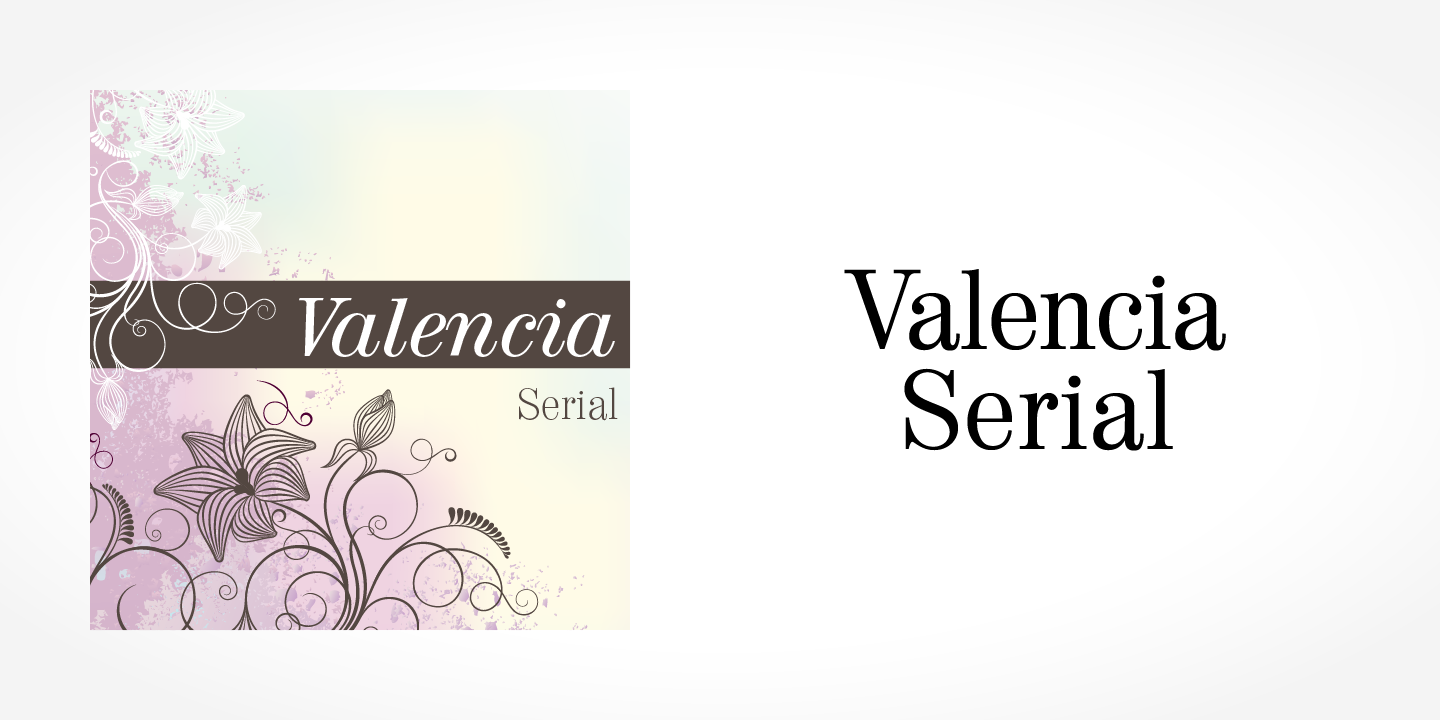
Valencia Serial Font is perfect for Mediterranean restaurant branding, Spanish cultural event posters, artisan food packaging, travel tourism promotions, flamenco dance studios, coastal resort signage, wine label designs, and romantic destination marketing.
Valencia Serial Font is exciting because it captures the passionate spirit and vibrant cultural heritage of Mediterranean life through its expressive character design that evokes the warmth of Spanish sunshine and the romantic charm of ancient European cities. Its distinctive styling and cultural authenticity make it the perfect choice for brands that want to communicate warmth, tradition, and the irresistible allure of Mediterranean lifestyle.
The Valencia Serial Font family includes multiple Mediterranean-inspired variations: Valencia Serial Regular, Valencia Serial Bold, Valencia Serial Light, Valencia Serial Condensed, Valencia Serial Script, and Valencia Serial Ornamental, along with decorative flourishes and cultural symbols, providing designers with comprehensive tools for creating authentic Spanish and Mediterranean-themed brand experiences.
When exploring Mediterranean typography solutions, Valencia Serial Font Free Download stands out as the premier choice for designers working on Spanish cultural and Mediterranean lifestyle projects. This captivating typeface embodies the essence of Iberian charm while offering the versatility needed for modern hospitality and tourism marketing. The font's warm character and cultural resonance create immediate connections with audiences who dream of Mediterranean adventures and authentic Spanish experiences.
Creative professionals consistently turn to Valencia Serial Font for projects requiring genuine Mediterranean authenticity and romantic appeal. Its carefully crafted letterforms feature cultural influences that work exceptionally well in both intimate restaurant menus and large-scale tourism advertising campaigns. The font's ability to convey passion and cultural pride while maintaining strong brand recognition makes it invaluable for comprehensive identity systems in the hospitality, tourism, and authentic Mediterranean product sectors.
Whether you're developing Spanish restaurant identities, creating Mediterranean travel promotions, or designing cultural festival materials, Valencia Serial Font delivers the authentic Iberian character and romantic appeal that resonates with audiences seeking genuine Mediterranean experiences. Its rich cultural associations and distinctive design ensure your projects capture the passionate spirit of Spanish culture while maintaining contemporary professional standards that attract modern travelers and cultural enthusiasts.